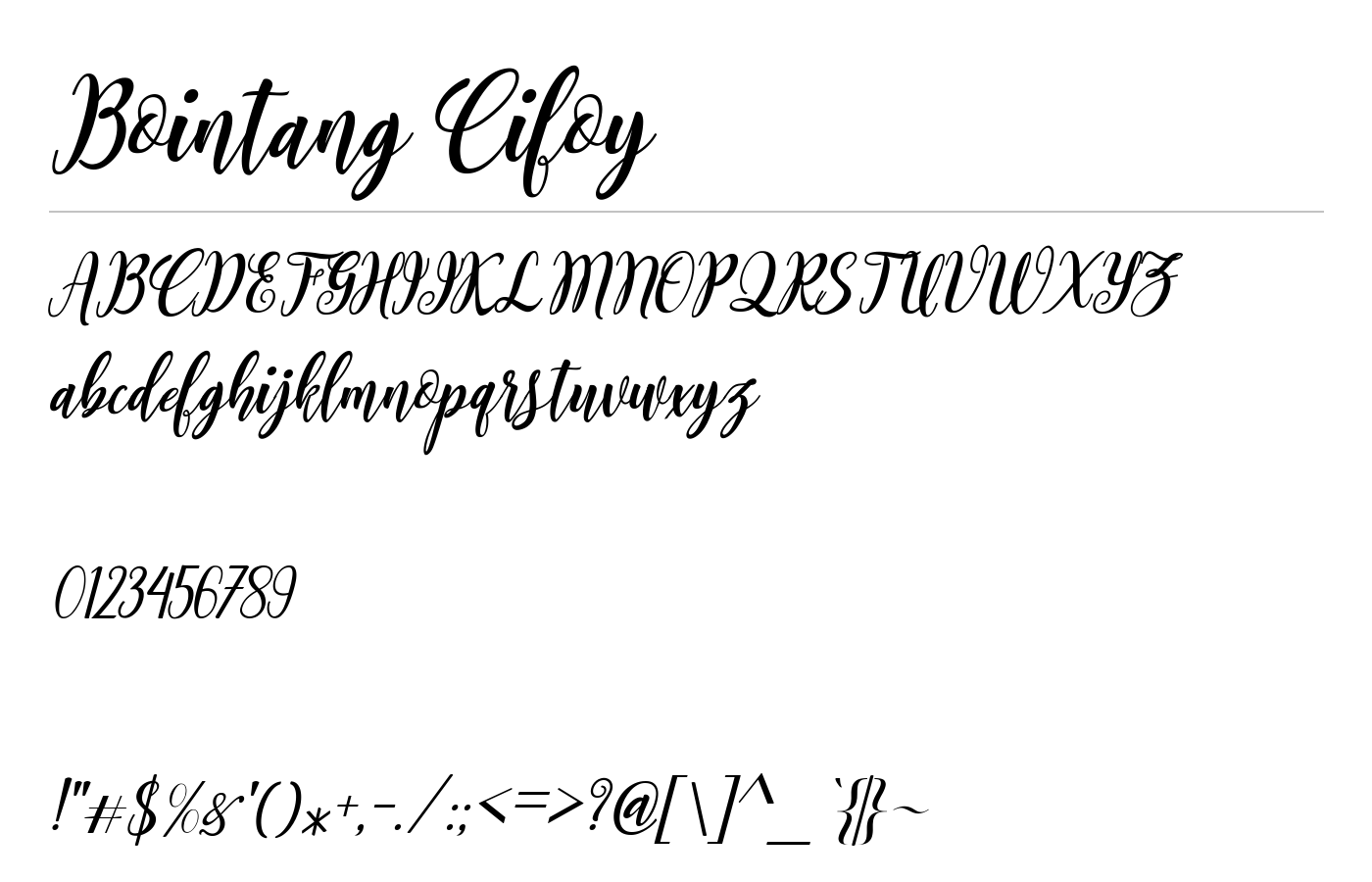
Bointang Cifoy is an elegant script font with smooth, flowing strokes and a graceful, handwritten feel. Its medium contrast and slightly condensed letterforms make it ideal for stylish logos, invitations, and branding that seek a refined yet approachable personality. This font’s delicate curves and unique character shapes lend sophistication to design projects focused on luxury, fashion, or creative expression.
Bointang Cifoy Font
About Bointang Cifoy Font
| Font family | Bointang Cifoy Font |
| Languages supported | Latin, Symbols, Thai |
| Release date | 2019-03-19 |
| Designer | Adefa Studio |